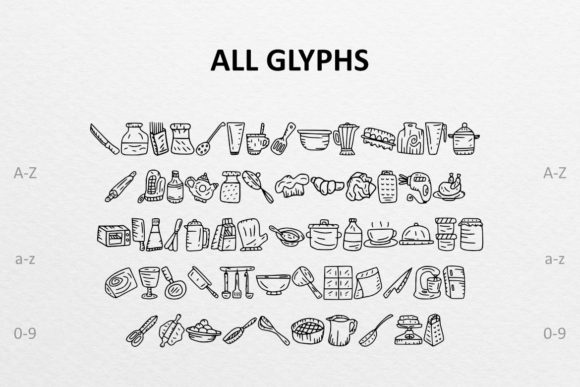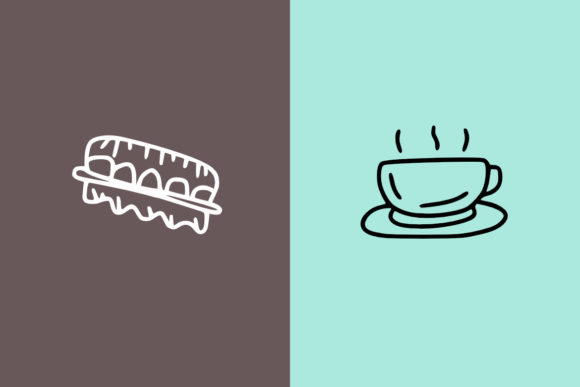
Introduction to Kitchen Doodle Font
Kitchen Doodle is a cool and useful dingbats font.
It is suitable for many projects, logos, ornaments and so on It contain 62 symbols which can nicely be used on various creations related to food, cutleries and kitchen.
Kitchen Doodle Font offers exceptional quality and versatility, making it a valuable addition to your design toolkit. Whether you’re creating for personal projects or commercial use, Kitchen Doodle Font delivers professional results.